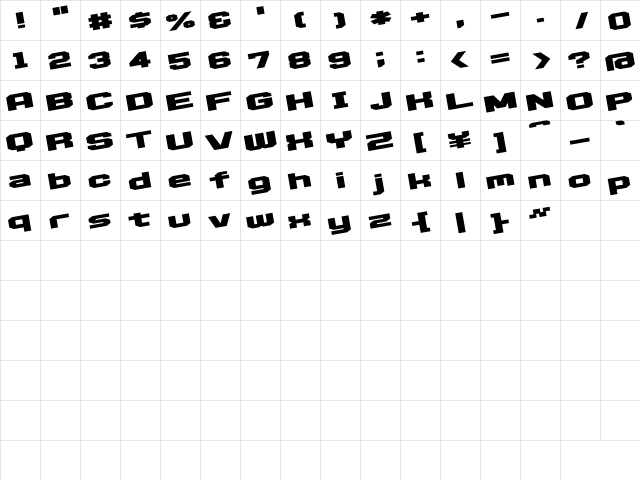
Complete D3 Egoistism leaning Regular glyph index. Displaying only characters natively supported by D3 Egoistism leaning Regular font.
D3 Egoistism leaning is a composed and adaptable typeface that performs quietly and consistently across a wide range of design contexts.